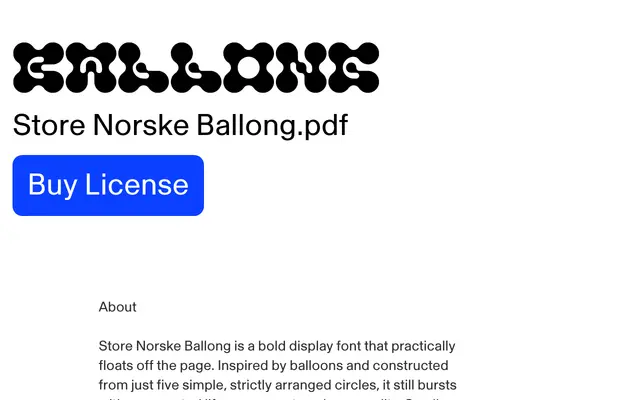
Store Norske Ballong
A bold display typeface by Arve Båtevik, constructed from just five circles, producing a bubbly, rhythmic quality suited to posters and editorial headlines.
Built from five strictly arranged circles, this single-weight display face achieves an unlikely dynamism despite its geometric constraints. Small joins between letterforms generate rhythm across headlines, while the rounded forms shift in character depending on context, reading variously as smoke, jelly or water. Language support covers selected Western European and Nordic languages, with OpenType alternates including variant S, Z, 2 and 5 forms via a single stylistic set.
Constructed entirely from five circles, Ballong is a geometric display typeface with a bubbly, rounded character that places it firmly in the display category rather than any text-oriented tradition.